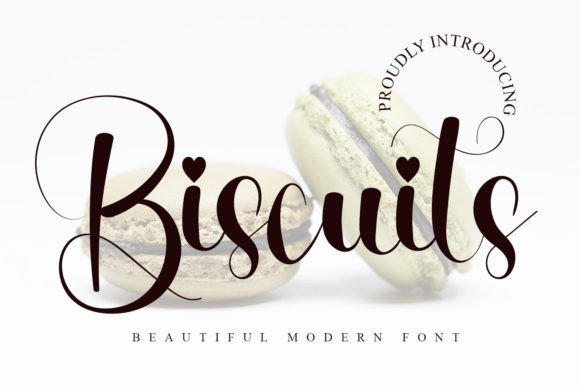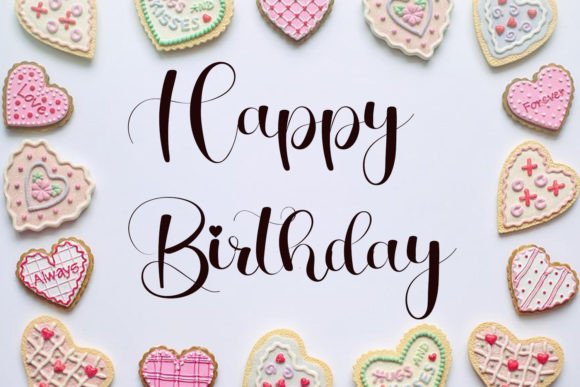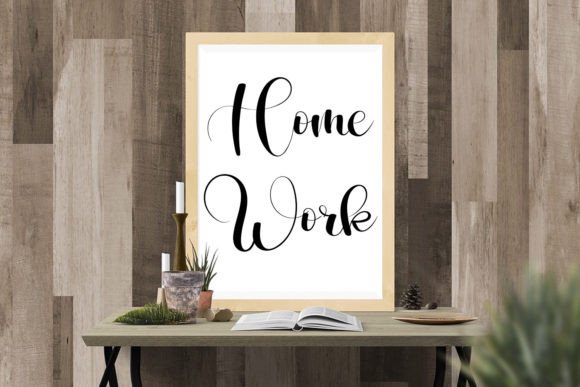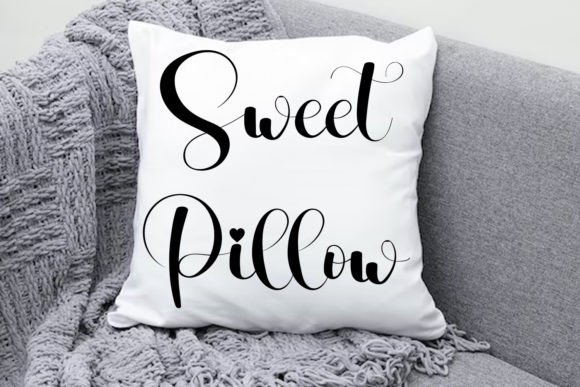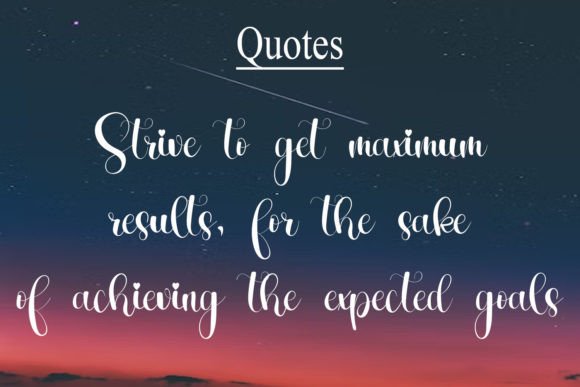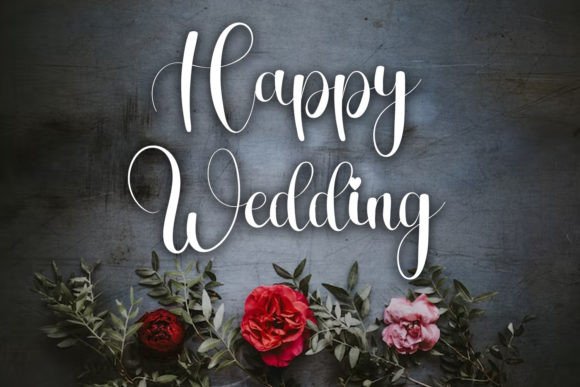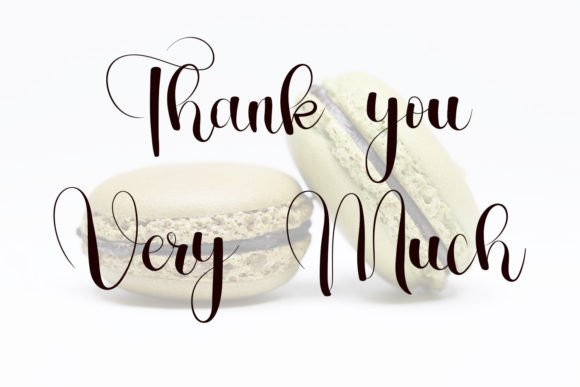
Biscuits Font
About Biscuits Font
Biscuits Font is a fresh and exquisite handwritten script font that brings a touch of luxury to any design project. Its unique charm and elegance make it a perfect choice when you want to infuse a sense of sophistication and style into your creative endeavors. The beauty of Biscuits lies in its ability to enhance the visual appeal of your projects effortlessly. Whether you’re working on branding, logos, invitations, posters, or any other design, this font adds a touch of luxury that captures attention and elevates the overall aesthetics.
Luxury Branding
For luxury branding and high-end design projects, Biscuits is a standout choice. Its graceful script style exudes elegance and refinement, setting the tone for a premium and memorable visual identity.
Invitations and Stationery
When applied to invitations and stationery, Biscuits imparts a sense of sophistication and beauty that is perfect for weddings, formal events, and special occasions. It adds a touch of luxury that enhances the overall experience.
Creative Applications
This font’s fresh and beautiful appearance makes it equally suitable for various creative applications, from product packaging to advertising materials. It brings a luxurious spark that helps your designs shine in the competitive world of visual communication.
In essence, Biscuits is more than just a font; it’s a design tool that adds a touch of luxury and elegance to your creative projects. Its ability to enhance the visual appeal and create a sense of sophistication makes it an invaluable asset for designers and creators aiming to make a lasting impression. So, let Biscuits be your choice for adding a luxurious spark to your next design project, where every letter exudes style and beauty.